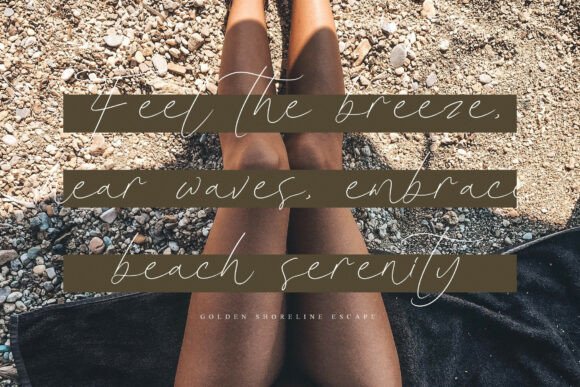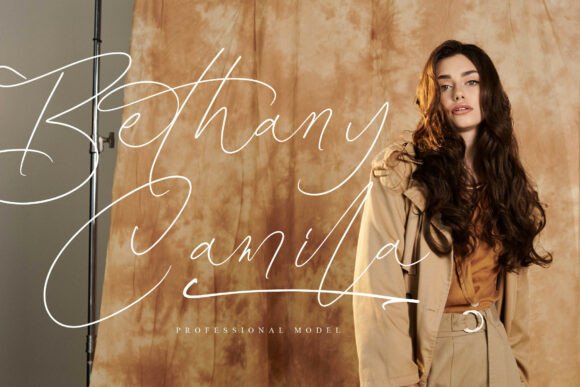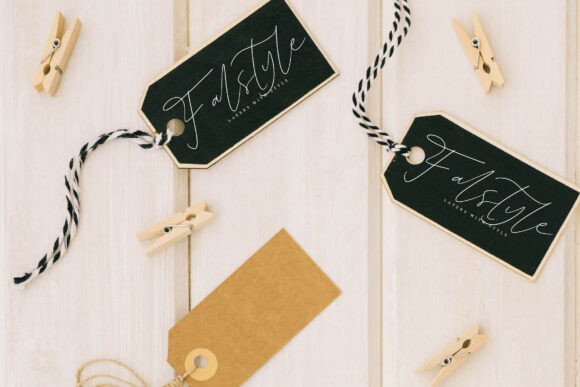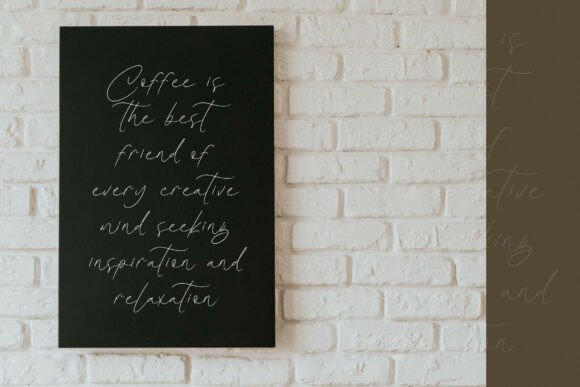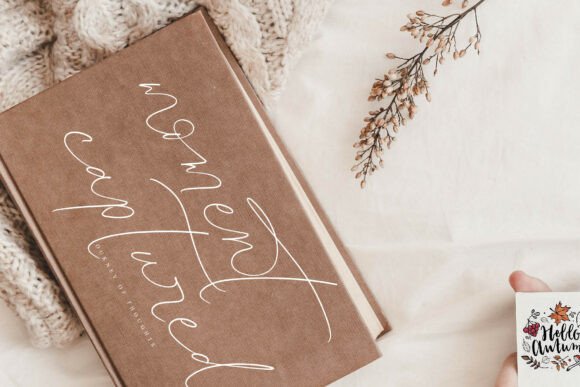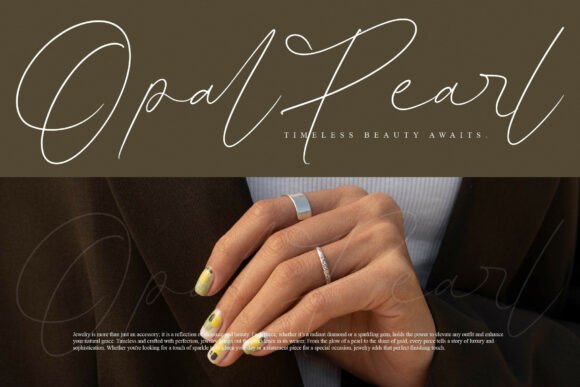
Introducing Brookside Pasture Font: Elevate Your Designs with Rustic Elegance
Are you searching for a font that embodies the perfect blend of sophistication and rustic charm? Look no further than Brookside Pasture, a beautifully detailed handwritten script font that is sure to elevate your designs. With its delicate swashes and ligatures, this stunning font is ideal for a variety of creative projects, from stationery and boutique logos to wedding designs and more.
The Beauty of Brookside Pasture
Brookside Pasture is a masterfully crafted font that exudes a sense of refinement and elegance. Its handwritten script style is characterized by delicate swashes and ligatures, which add a touch of sophistication to any design. The font’s rustic charm is perfect for designers and crafters who want to add a personal touch to their work, while its refined aesthetic ensures that it remains suitable for a wide range of applications.
Brookside Pasture is an incredibly versatile font that can be used in a variety of creative projects. Here are just a few ideas to get you started:
- Stationery: Add a touch of elegance to your stationery designs with Brookside Pasture. Whether you’re creating custom letterheads, invitations, or greeting cards, this font is sure to impress.
- Boutique Logos: Give your boutique or small business a unique and sophisticated logo with Brookside Pasture. The font’s rustic charm and refined aesthetic make it perfect for a wide range of industries, from fashion and beauty to home decor and more.
- Wedding Projects: Make your wedding designs truly unforgettable with Brookside Pasture. From wedding invitations and programs to signage and decor, this font is sure to add a touch of romance and sophistication to your creations.
Key Features of Brookside Pasture
So what sets Brookside Pasture apart from other fonts? Here are just a few of its key features:
- Delicate Swashes: Add a touch of elegance to your designs with Brookside Pasture’s delicate swashes. Perfect for creating beautiful connections between letters and words.
- Ligatures: Take your designs to the next level with Brookside Pasture’s ligatures. These special characters combine two or more letters to create a single, flowing unit that’s perfect for creating sophisticated text.
- Handwritten Script Style: Give your designs a personal touch with Brookside Pasture’s handwritten script style. This beautiful font is perfect for creating unique and eye-catching text that stands out from the crowd.
Tips for Using Brookside Pasture
Ready to start using Brookside Pasture in your designs? Here are a few tips to get you started:
- Experiment with Font Sizes: Brookside Pasture looks beautiful in a variety of font sizes. Experiment with different sizes to find the perfect fit for your design.
- Play with Swashes and Ligatures: Take advantage of Brookside Pasture’s delicate swashes and ligatures to add a touch of elegance to your designs.
- Pair with Other Fonts: Brookside Pasture pairs beautifully with a wide range of fonts. Experiment with different pairings to find the perfect combination for your design.
Brookside Pasture is a truly unique and versatile font that’s perfect for designers and crafters who want to add a touch of rustic elegance to their work. With its delicate swashes and ligatures, this beautiful handwritten script font is sure to elevate your designs and help you stand out from the crowd. So why wait? Download Brookside Pasture today and start creating stunning designs that showcase your unique style and creativity.